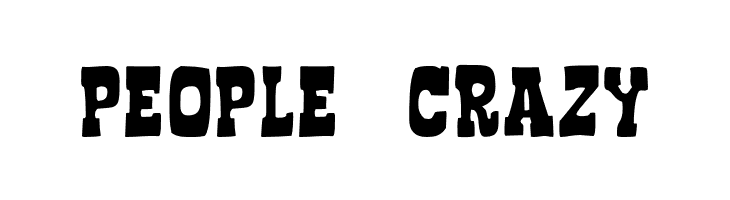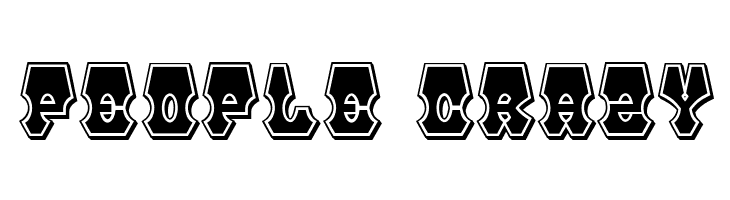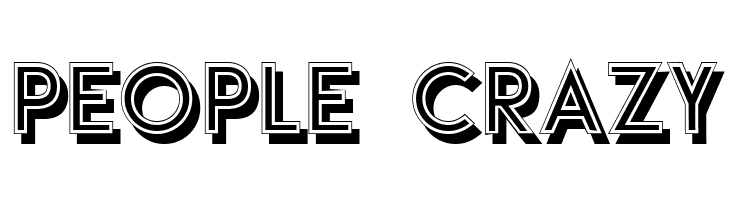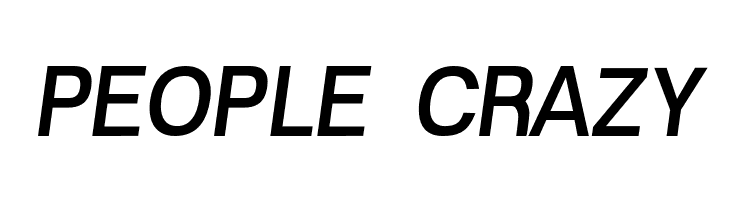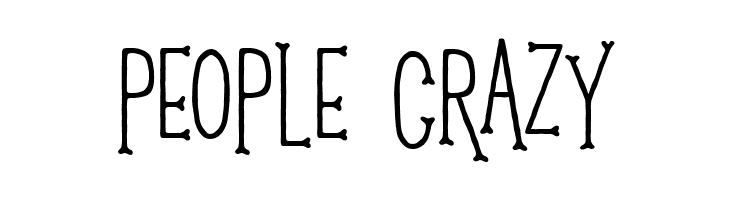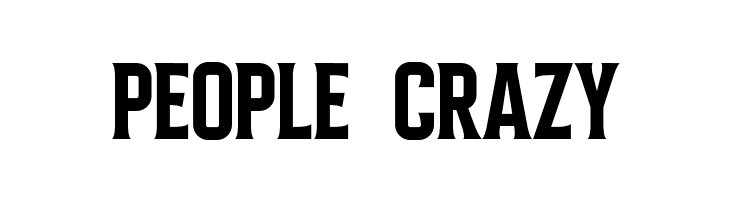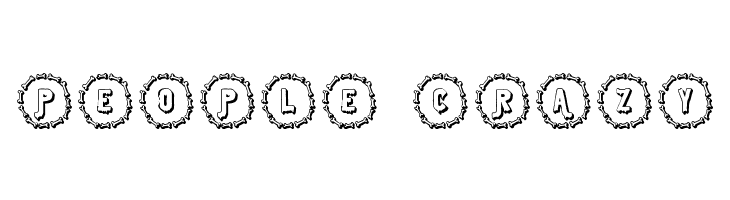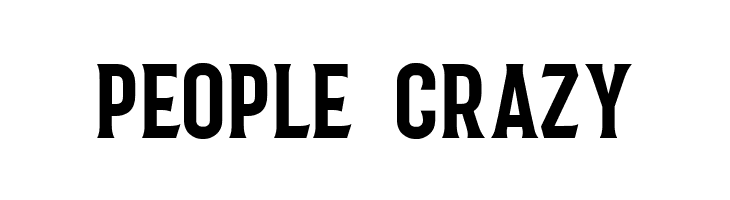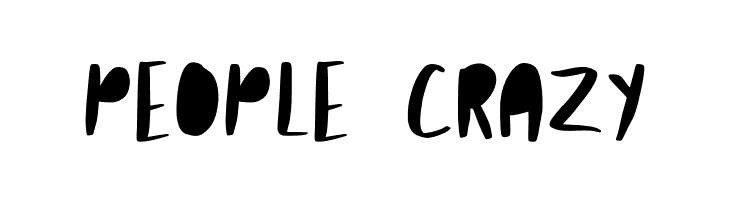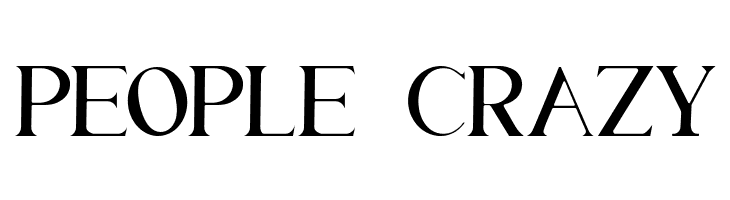
A fluid and elegant handwritten font with dynamic curves and playful special characters.
A bold, expressive script font with a hand-drawn, artistic style.
A lively and expressive script font with bold, flowing letterforms.
A bold, decorative font with intricate details and a modern flair.
An elegant, cursive font with intricate flourishes and a dynamic style.
A bold, vintage-inspired font perfect for impactful headlines.
A bold, impactful font with a vintage yet modern style, perfect for standout designs.
A bold, italic serif font with high contrast and angular serifs.
A bold, outlined font with a strong, impactful presence.
A bold, outlined, italic font with a modern and dynamic style.
A bold, rough-textured font with a vintage, distressed look.
A bold, rough-textured italic font with a dynamic and handcrafted appearance.
A bold, rounded font with a strong, friendly appearance.
A bold, rounded, and italic font with smooth curves and a modern look.
A bold, distressed font with a vintage stamp-like appearance.
A bold, italicized font with a distressed, stamped texture.
A bold, blocky font with a vintage yet modern appeal.
A bold, playful font with exaggerated serifs and a hand-crafted look.
A bold, three-dimensional font with geometric structure and shadow effects.
A playful, casual handwritten font with rounded edges and consistent flow.
A dynamic, textured handwritten font with a playful and artistic style.
A bold, playful handwritten font with dynamic strokes and a casual style.
A playful, handwritten-style font with bold, irregular strokes.
A bold, outlined font with geometric lines and a modern aesthetic.
A modern, sleek font with tall, narrow characters and consistent stroke width.
A classic serif font with modern elements and elegant proportions.
A bold, geometric font with sharp, angular lines and a modern aesthetic.
A bold, condensed font with strong, uniform strokes.
A bold, modern font with strong, condensed characters and high contrast.
A playful, bone-like font with a hand-drawn appearance.
A decorative font with bold uppercase letters encased in ornate circular borders.
A bold, rounded serif font with a playful and decorative style.
A bold, outlined font with a playful and engaging style.